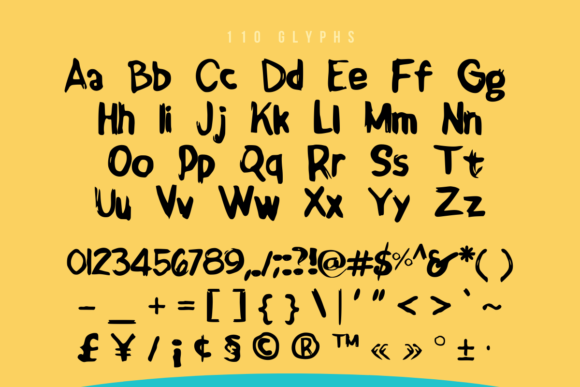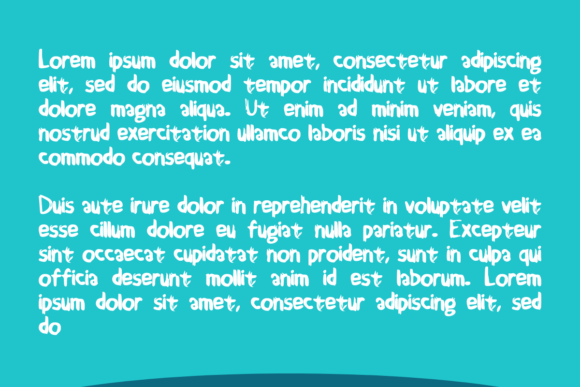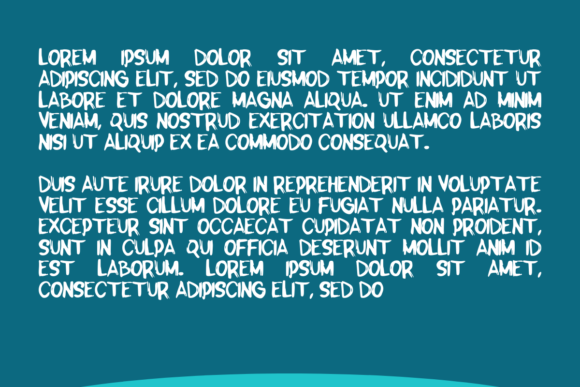
About Hello My Name is Font
Hello My Name Is is a clean and rough textured handwritten font. Whether you’re looking for fonts for Instagram or calligraphy scripts for DIY projects, this font will turn any creative idea into a true piece of art!